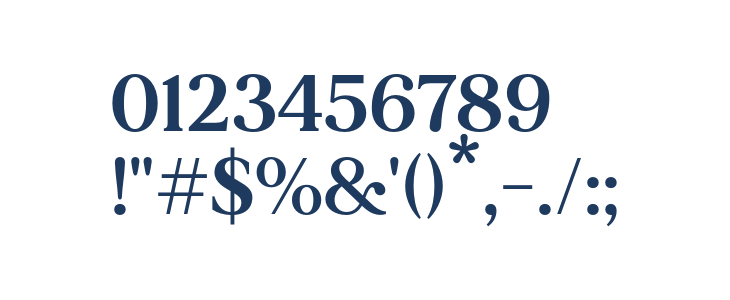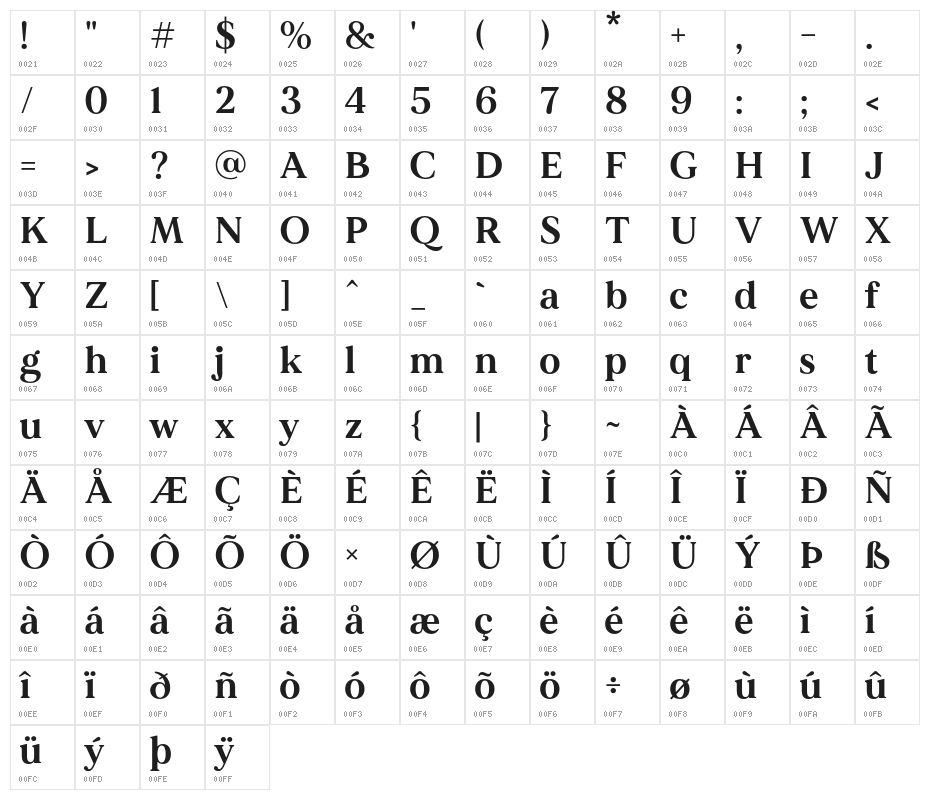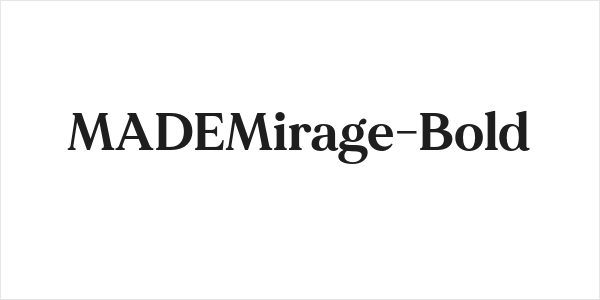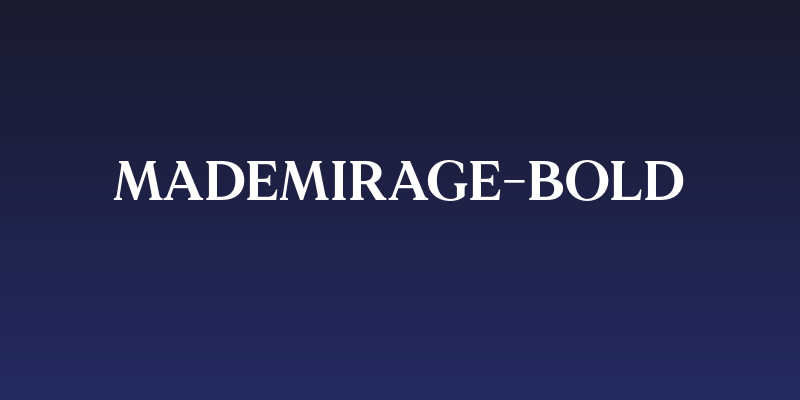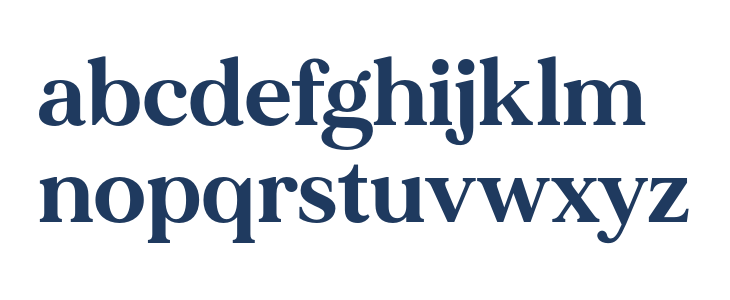
MADEMirage-Bold Font
MADEMirage-Bold Description
This font exhibits a bold and authoritative presence with its strong, thick strokes and classic serif design. The uppercase letters are well-defined, with a traditional elegance that is both timeless and versatile. The lowercase letters maintain a consistent style, offering a harmonious balance between readability and aesthetic appeal. The numerals are clear and robust, making them suitable for various applications. Special characters are thoughtfully designed, ensuring they complement the overall font style. This font is ideal for projects that require a touch of sophistication and clarity.
| Use Case | Headlines, Logos, Editorials |
| Proposed Projects | Ideal for book covers, editorial headlines, branding, and formal invitations. |